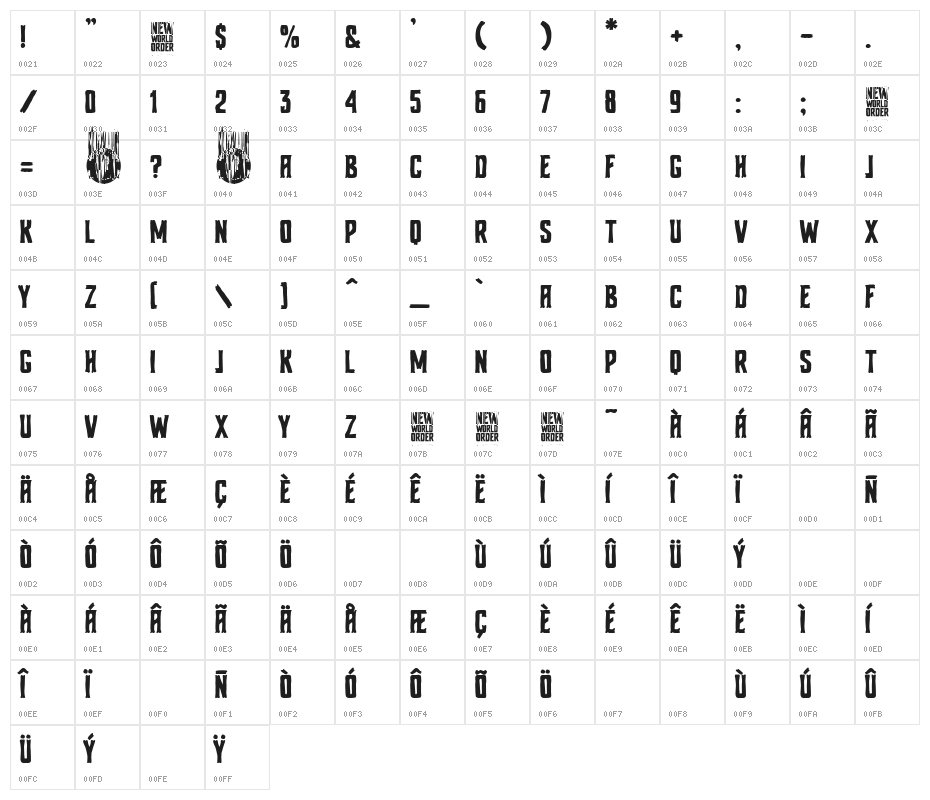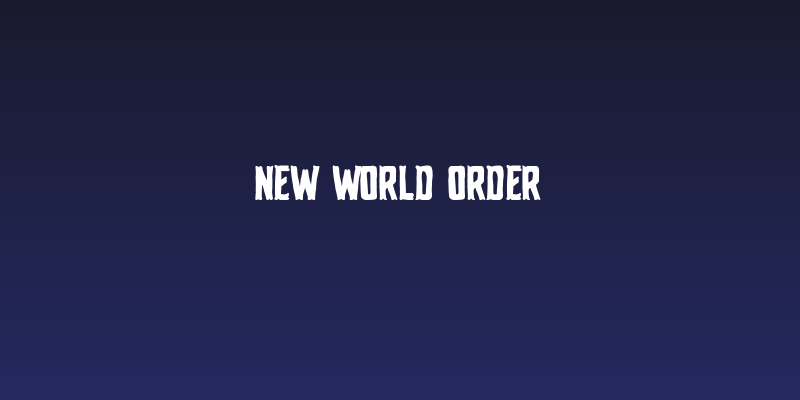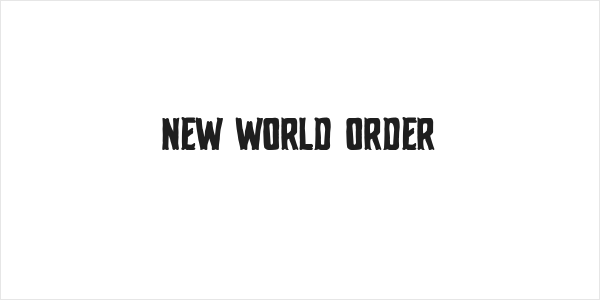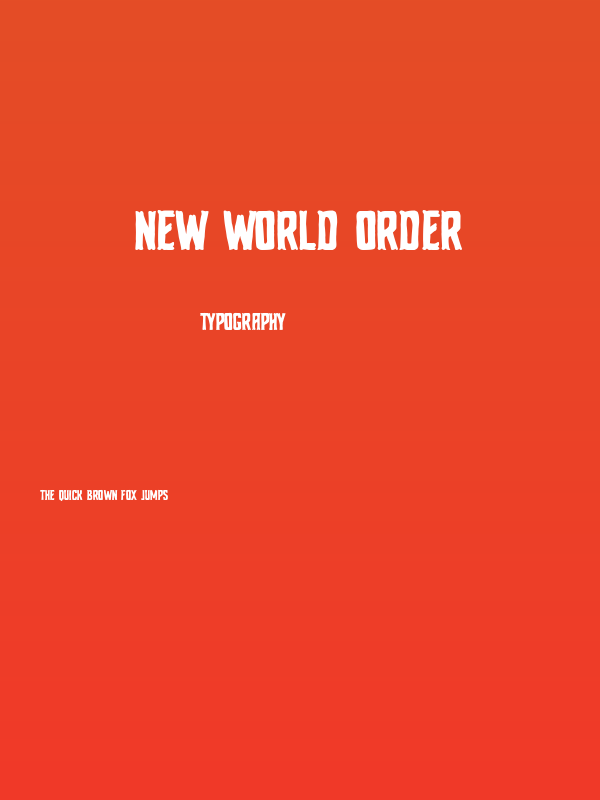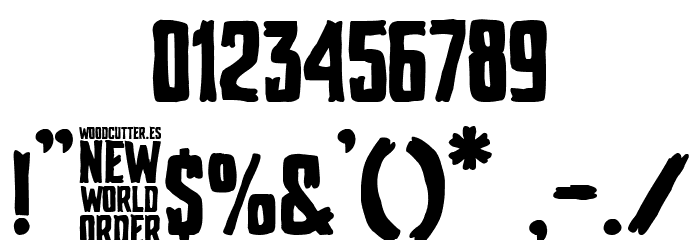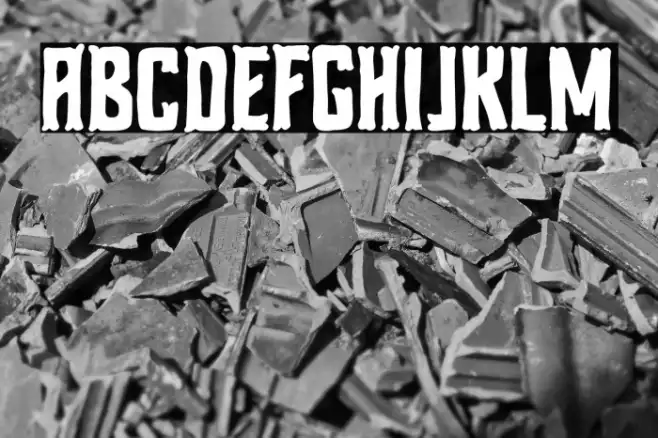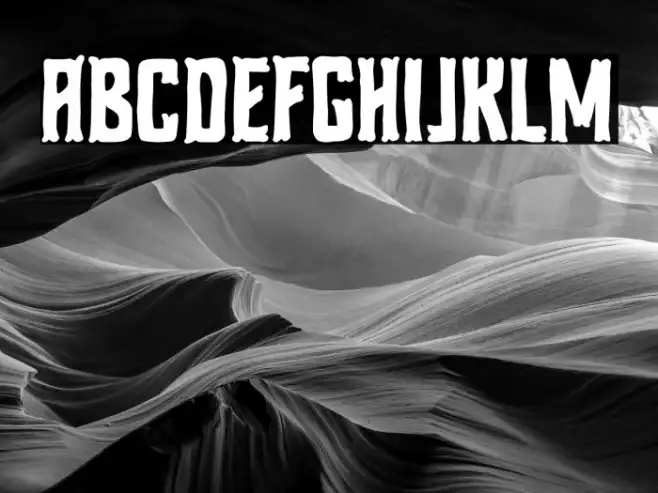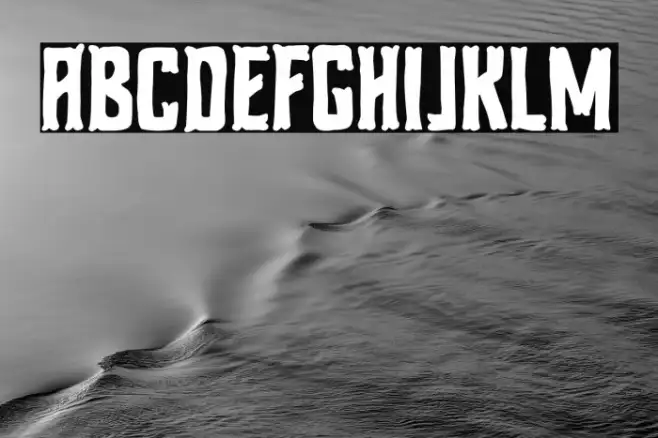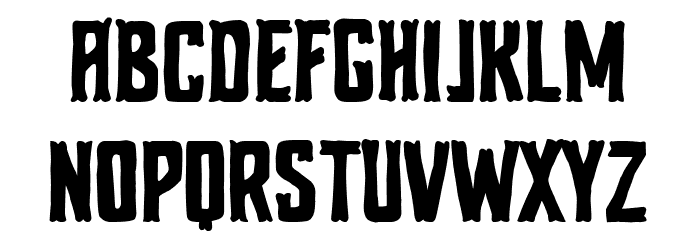
New World Order Font
New World Order Description
This font features a bold and rugged style with a hand-drawn appearance, giving it a raw and edgy look. The characters are slightly irregular, adding to its handcrafted feel. The uppercase letters are prominent and assertive, while the lowercase letters maintain a consistent style. Numbers and special characters are designed to match the boldness of the alphabet, making the font suitable for impactful designs. The overall aesthetic is reminiscent of vintage or distressed styles, making it ideal for projects that require a strong, attention-grabbing typeface.
| Proposed Projects | Ideal for posters, album covers, branding, and any project needing a bold, vintage aesthetic. |